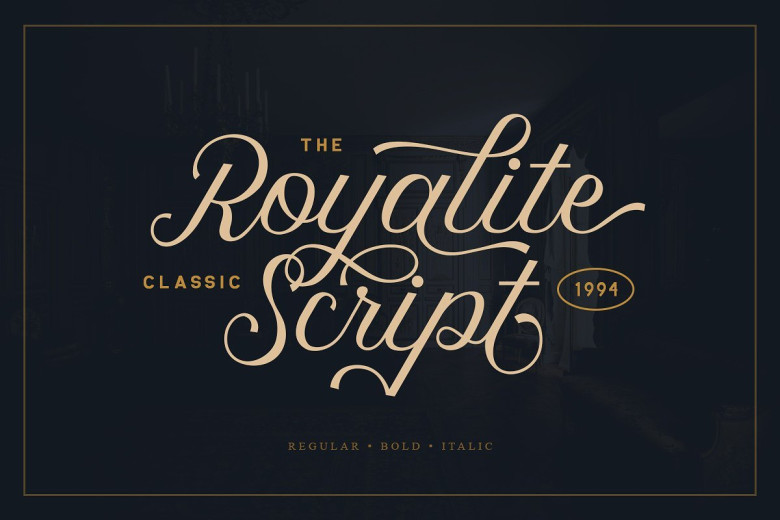
Royalite Script Font
The best font package today is a modern calligraphy typeface, please add it to your fonts collection. Introducing Royalite Font. Royalite is classic script font that contain stylistic alternate, swash, etc to create your own customized signature. You can feel the elegant and luxury from this font. It’s time to try a new classic script. Create gorgeous wedding invitations, quotes, logos, mood boards, and anything you wish with a delicate.